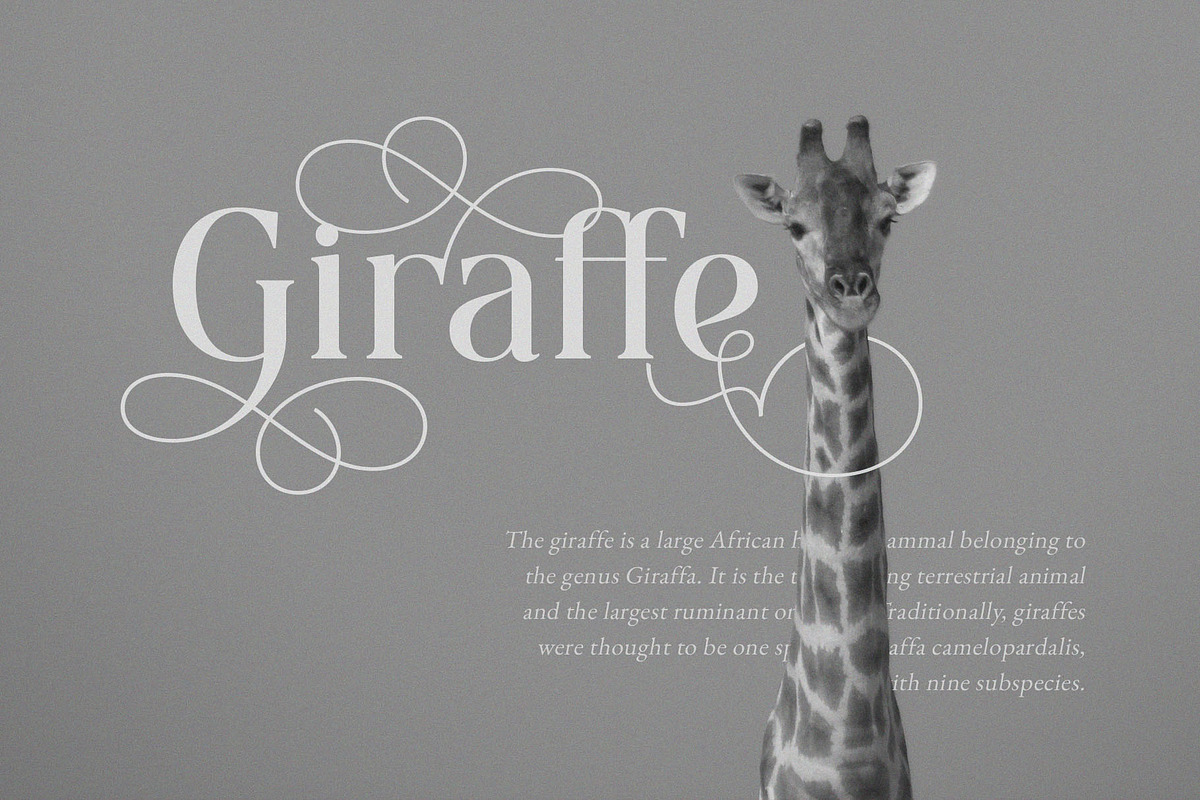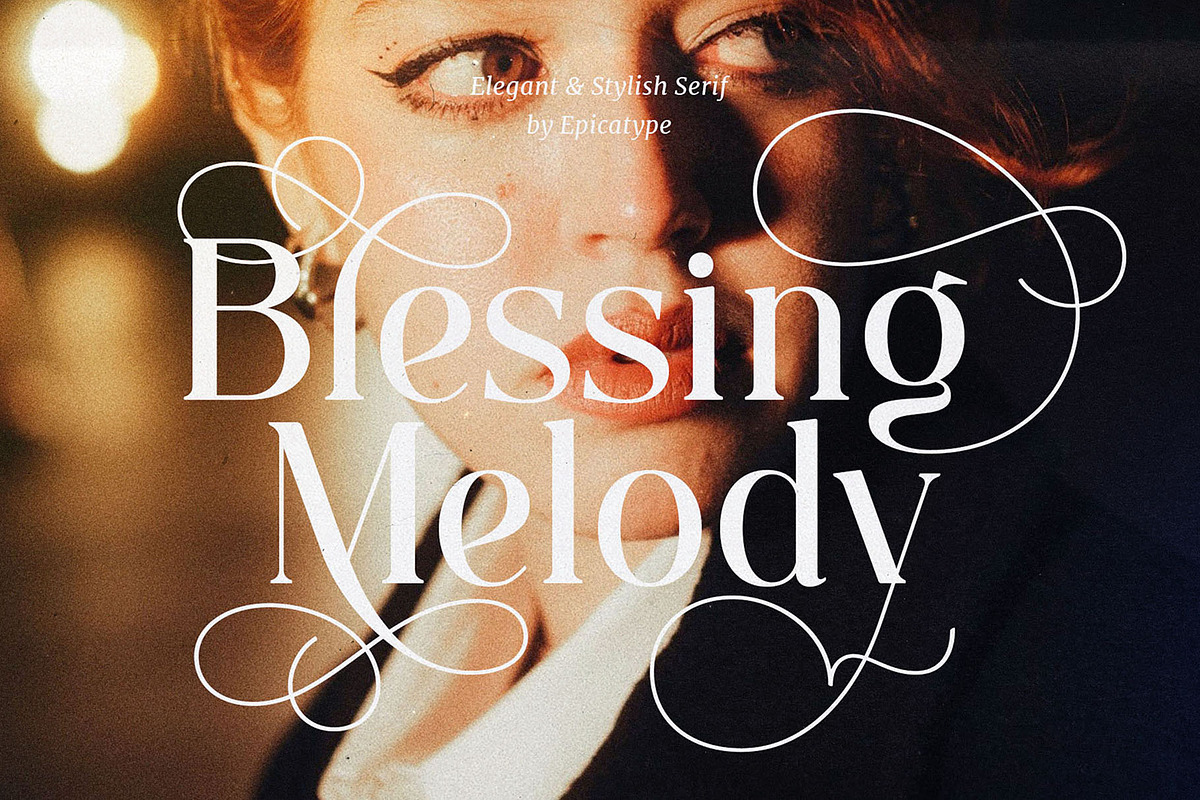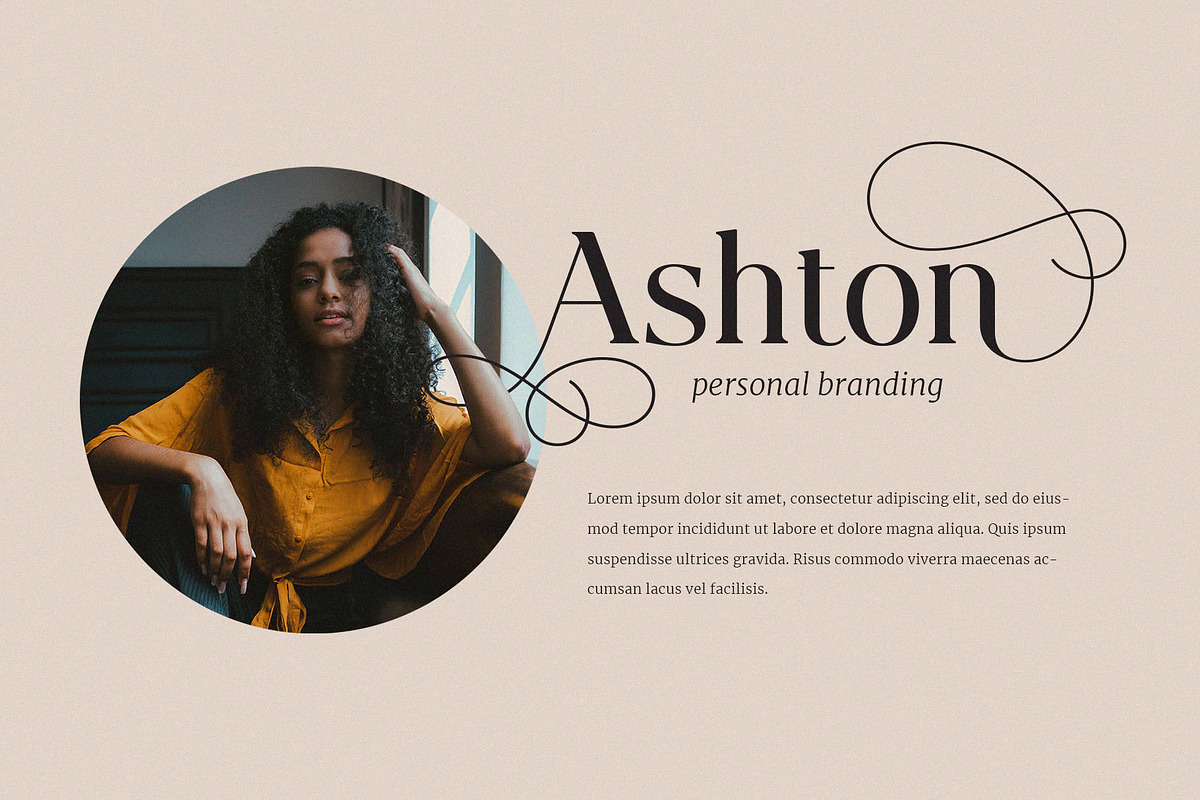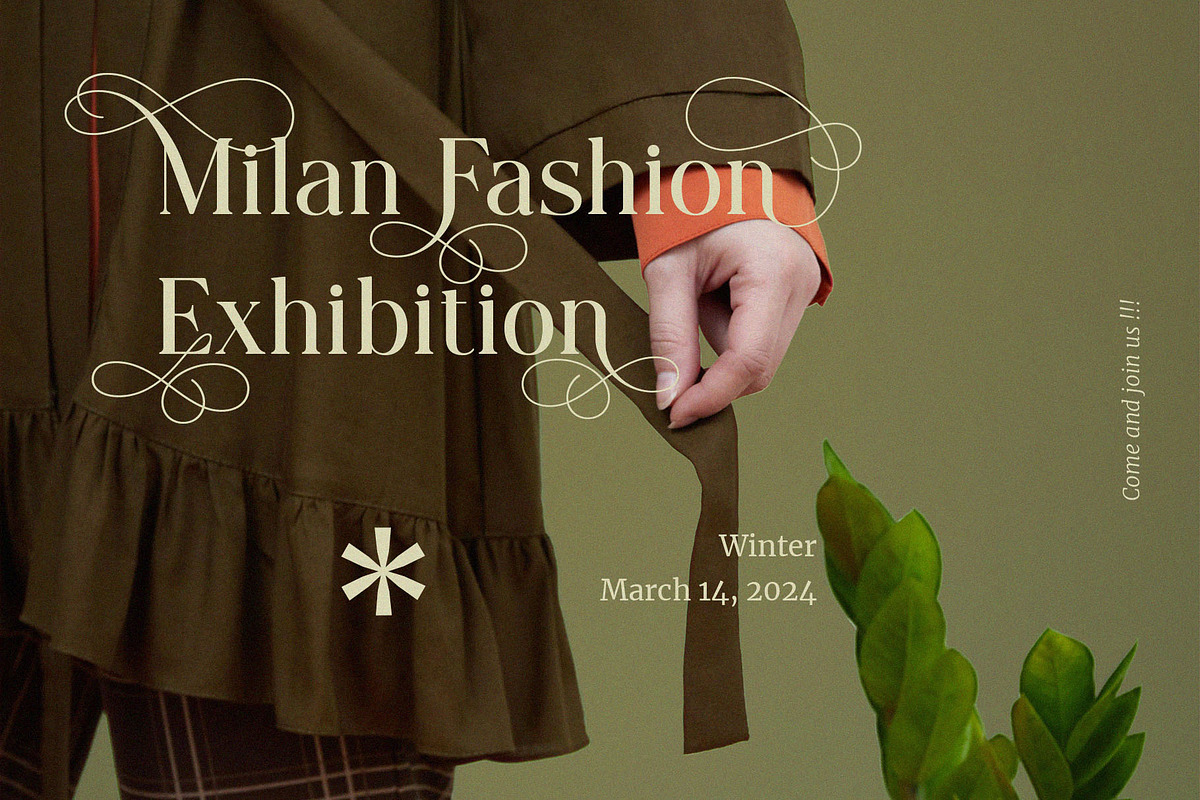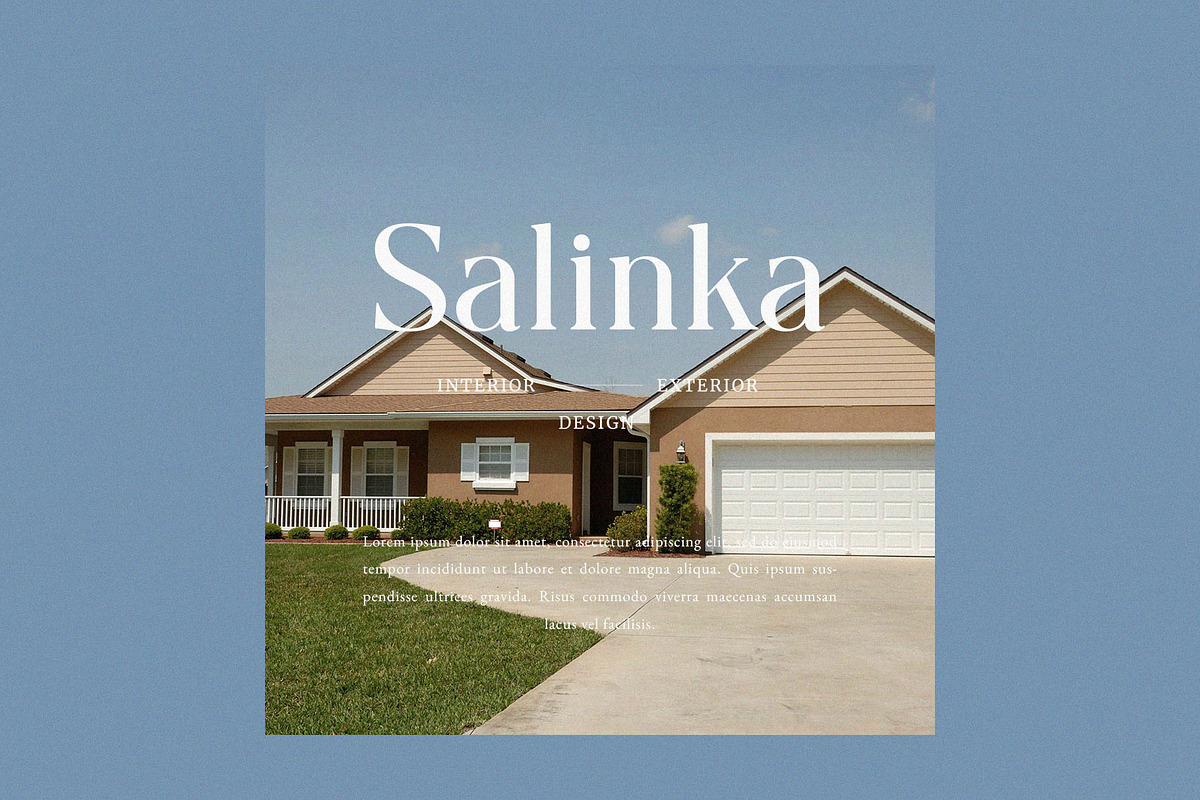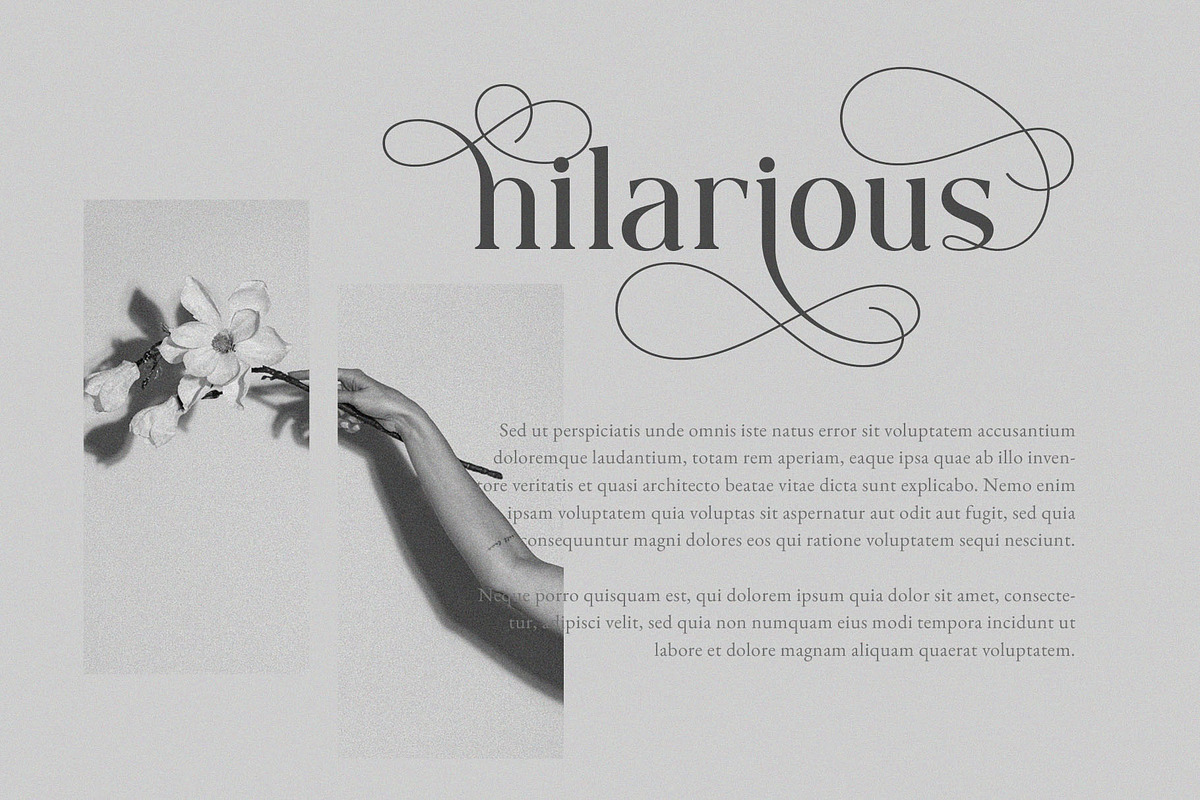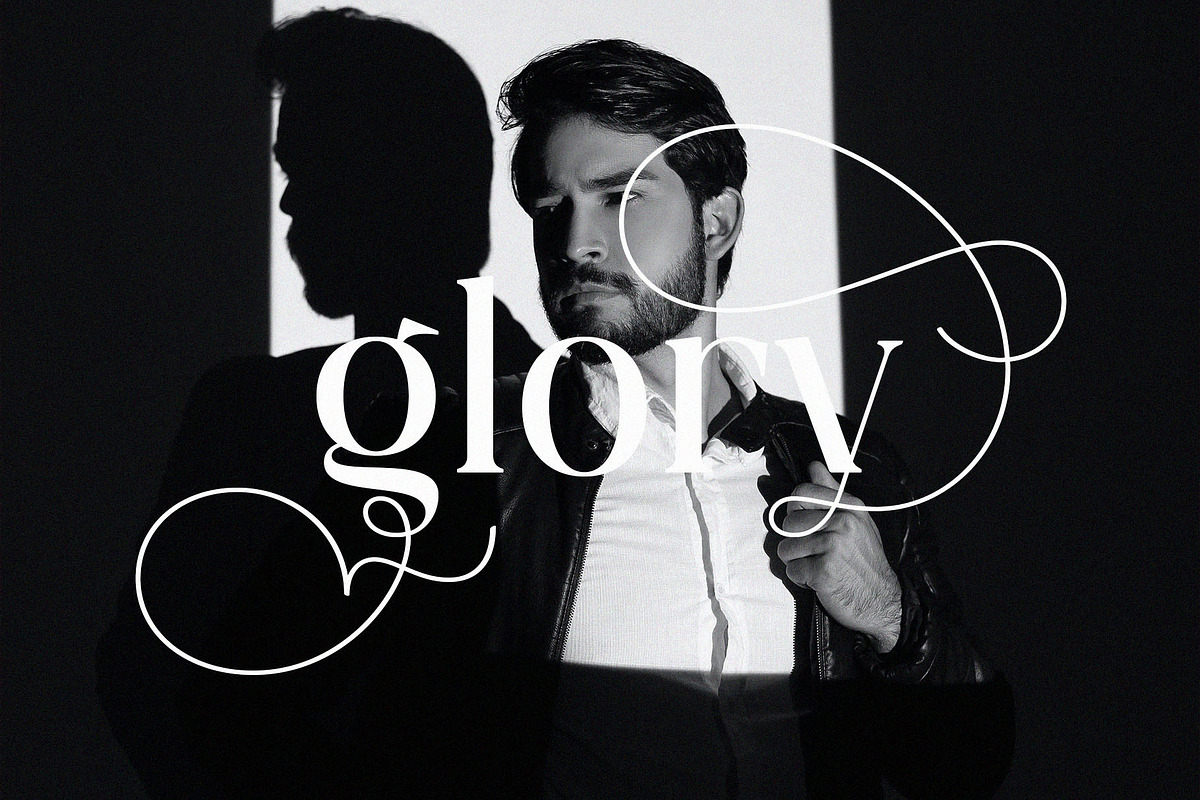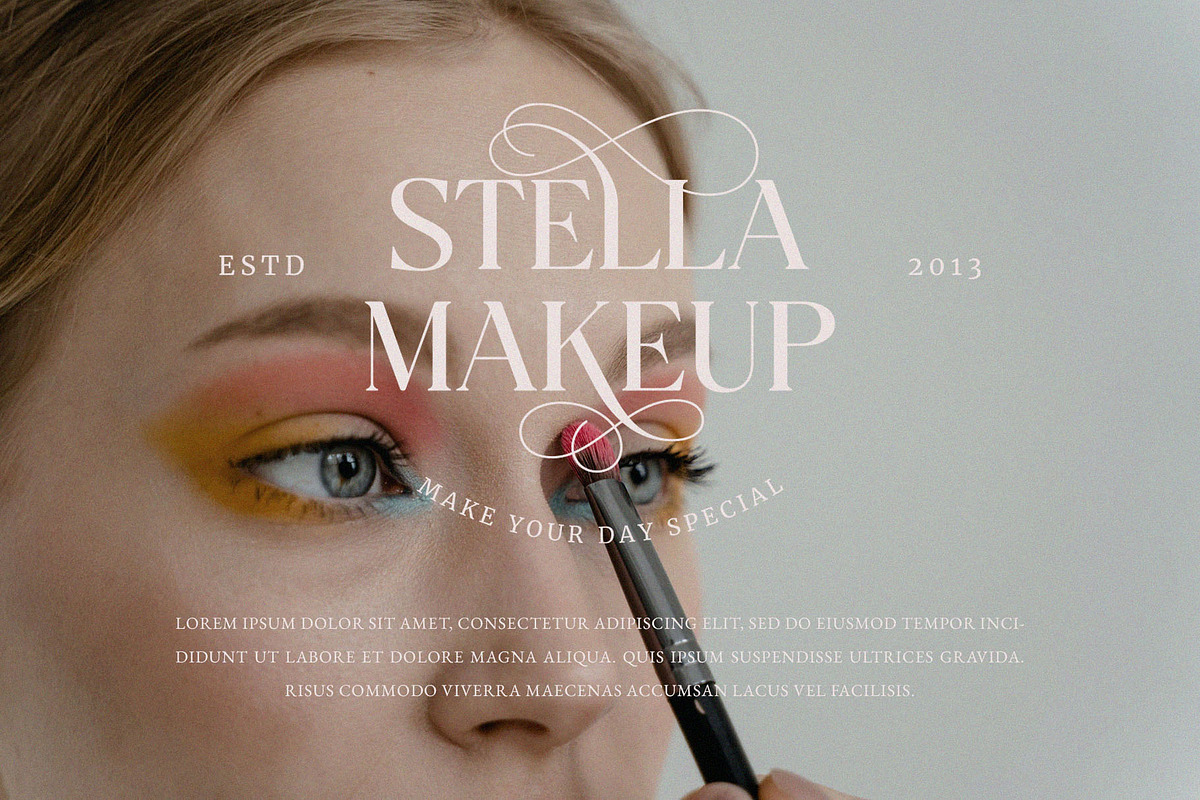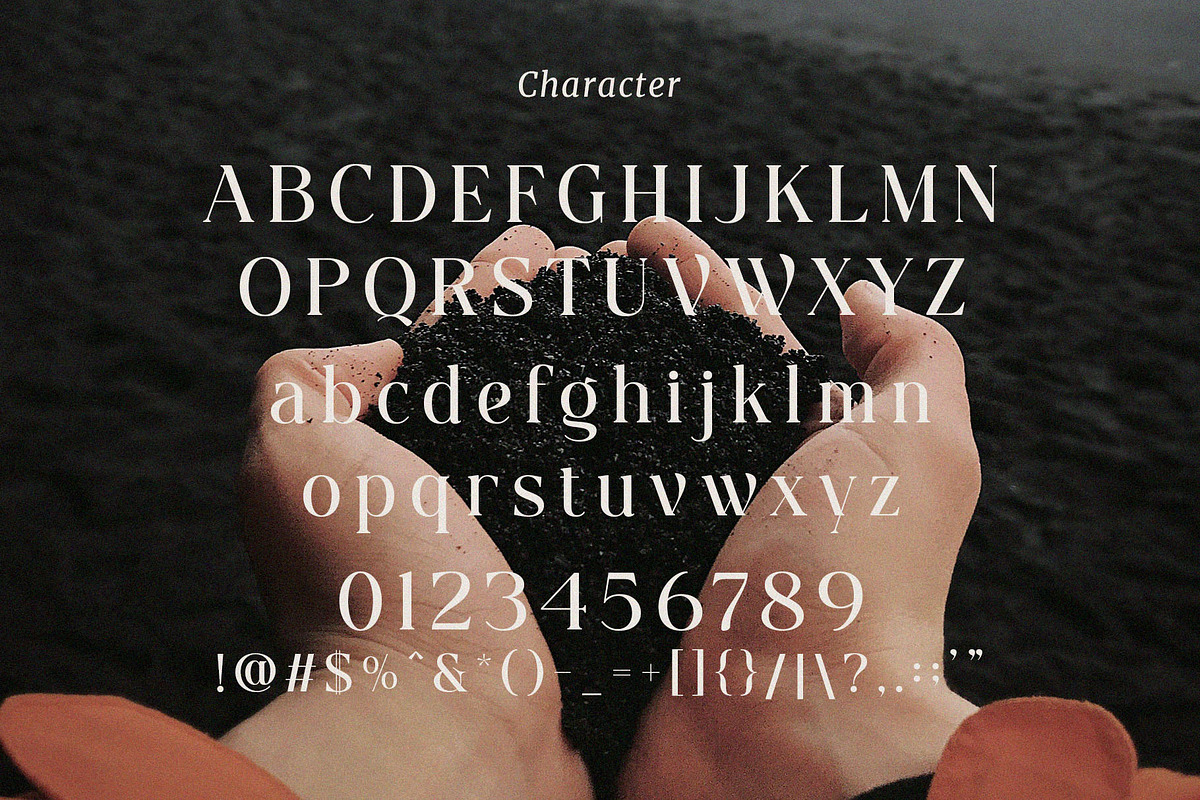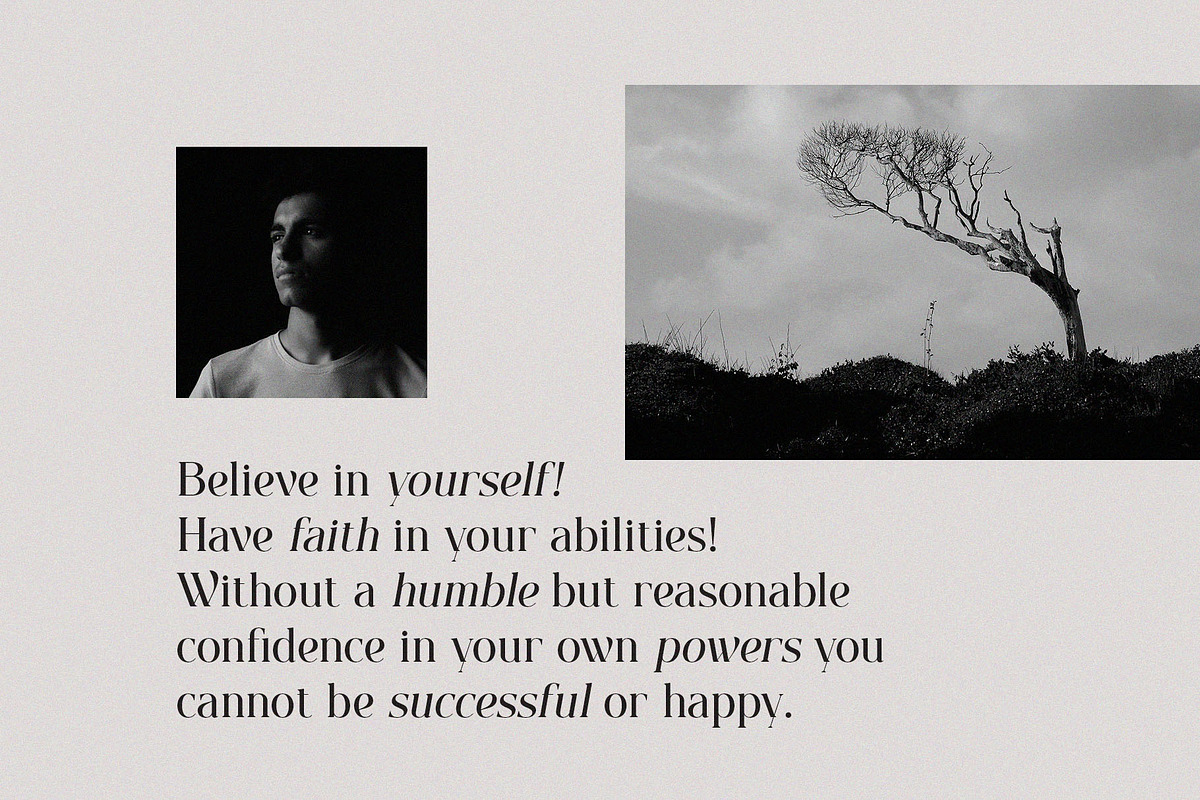
Blessing Melody - Stylish Serif
Hello, new elegant & stylish serif called Blessing Melody!!! Blessing Melody is a stylish and elegance serif font Works great for logos, magazine, social media. It come with a unique lower and uppercase plus numbers, punctuation & multilingual letters, alternates and ligatures.